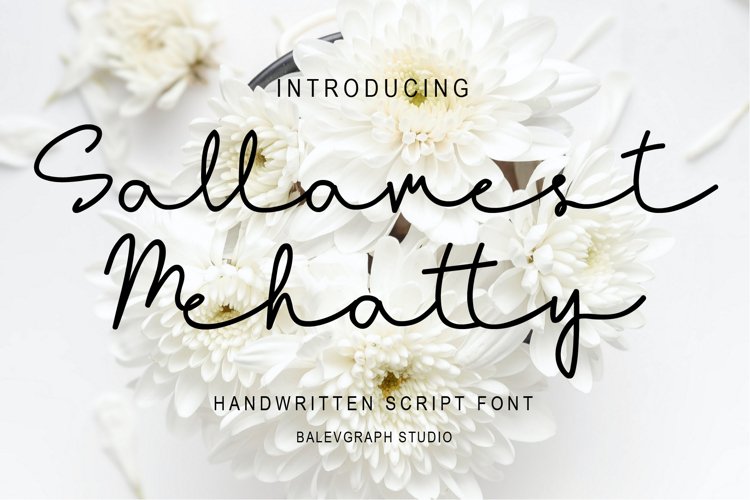
Sallamest handwritten script font is made with care and has a softness in every latter.
Sallamest would perfect for photography, watermark, social media posts, advertisements, logos & branding, invitation, product designs, label, stationery, wedding designs, product packaging, special events or anything that need handwriting taste.